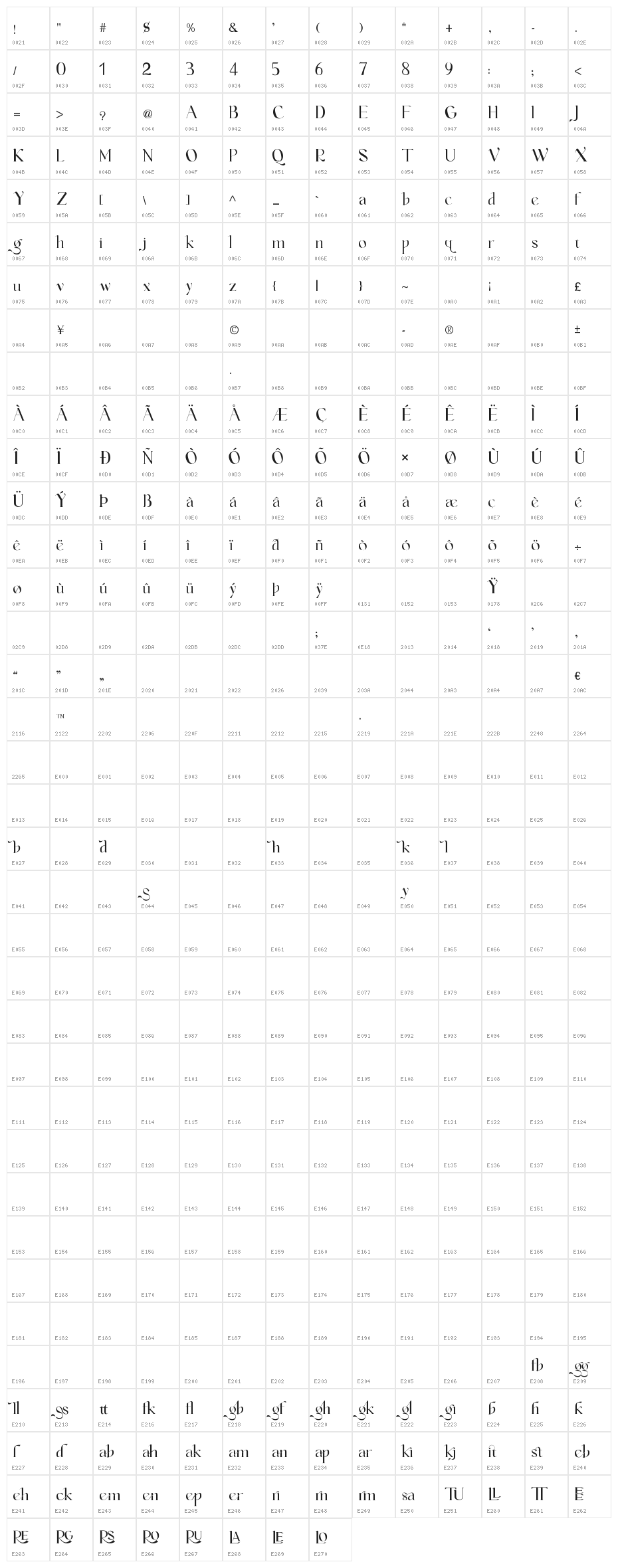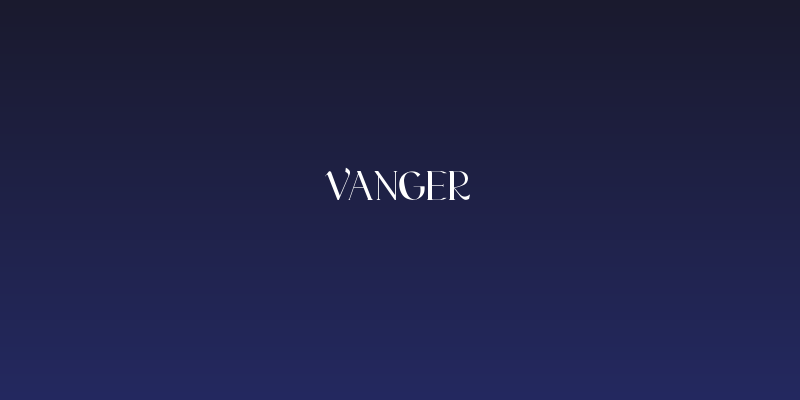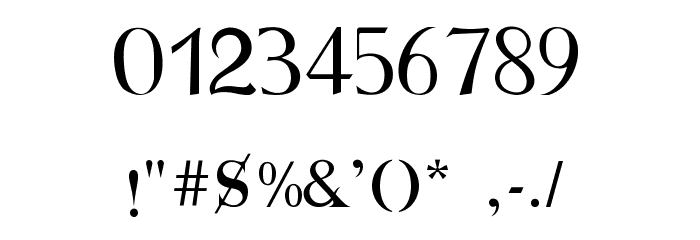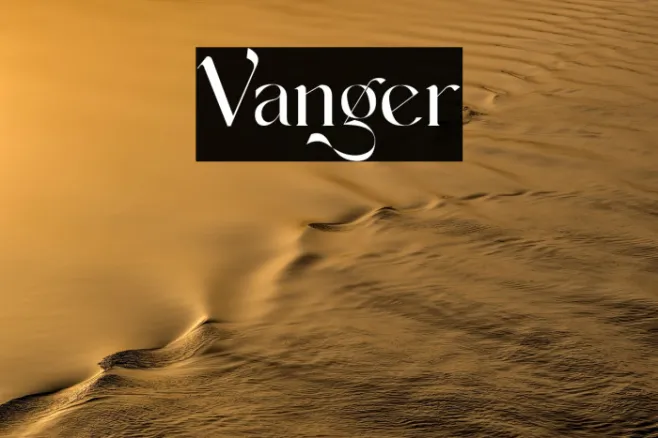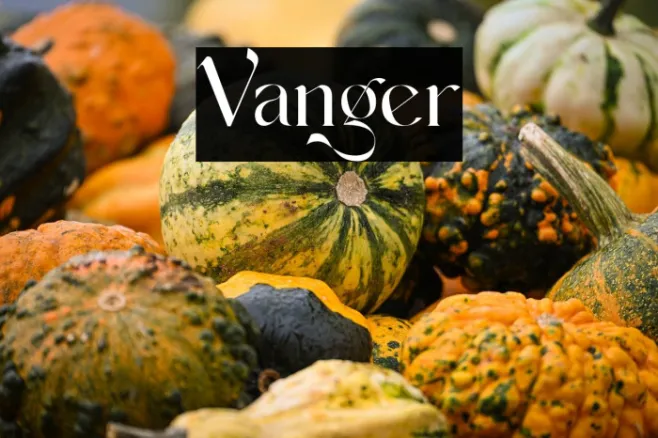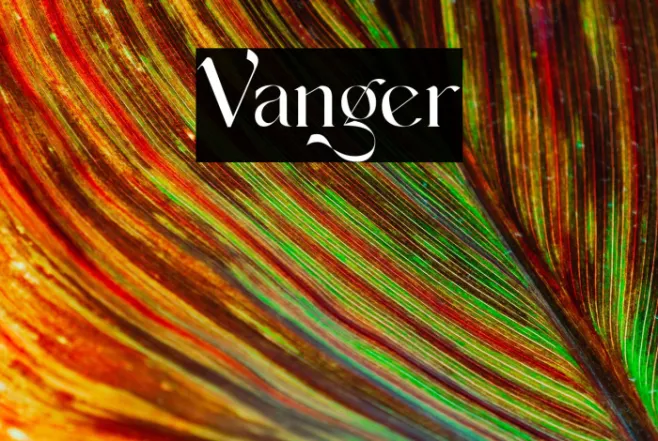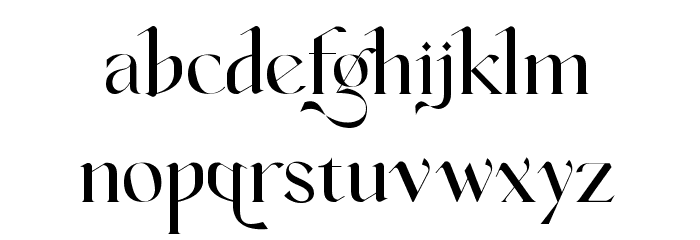
Vanger Font
Vanger Description
This font features a distinctive blend of elegance and modernity, characterized by its sharp serifs and high contrast between thick and thin strokes. The uppercase letters exhibit a sophisticated flair with unique terminal styles, while the lowercase letters maintain a harmonious balance with subtle curves and angles. The numerals are designed with a consistent style that complements the alphabet, ensuring readability and aesthetic appeal. Special characters are crafted with attention to detail, enhancing the font's versatility for various design needs.
| Use Case | Headlines, Logos, Editorial design |
| Proposed Projects | Ideal for luxury branding, editorial design, and high-end product packaging. |